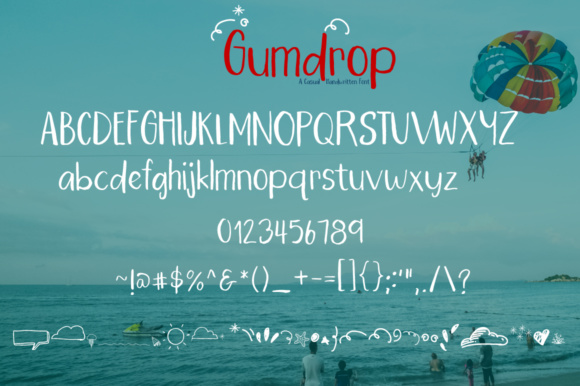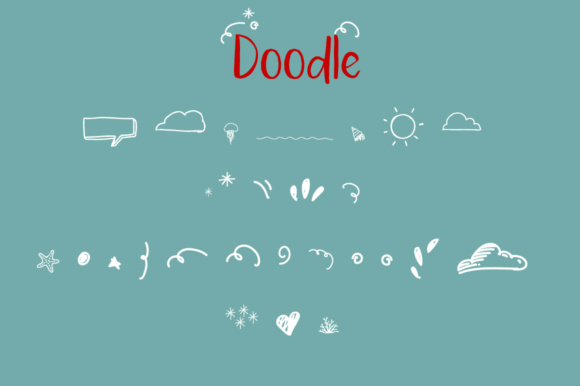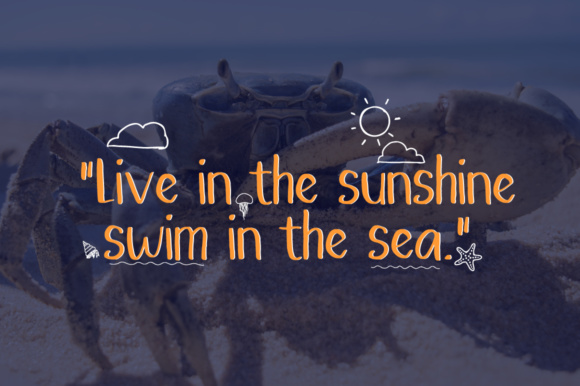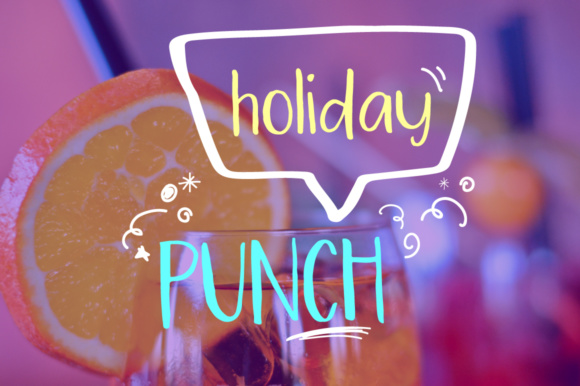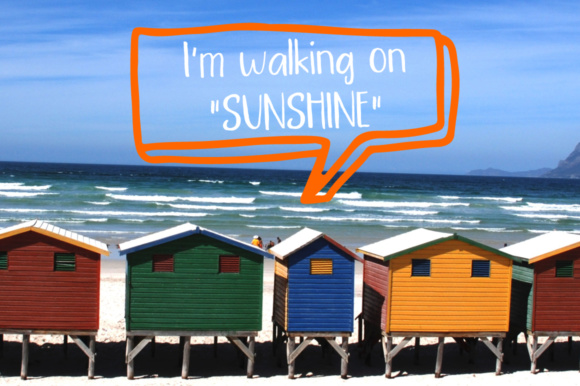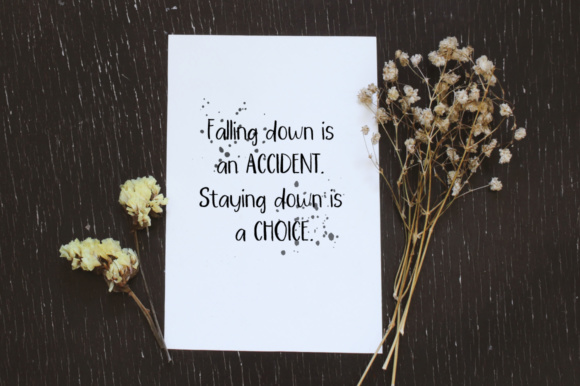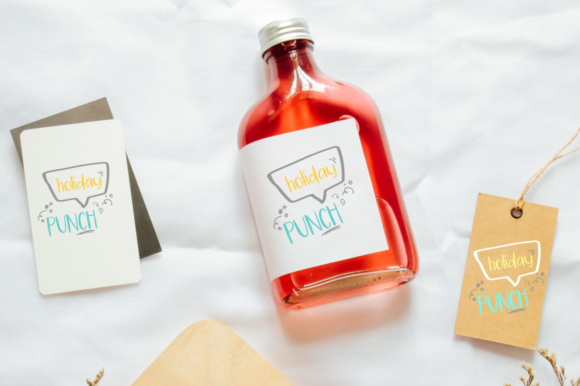
Gumdrop Font
About Gumdrop Font
The Gumdrop is a casual handwritten font. It was made with a bitty brush and pretty watercolors. It has a little texture in it and wobbly rough watercolor edges.
This abstract and artistic font is perfect when used for mixed media compositions and collages.